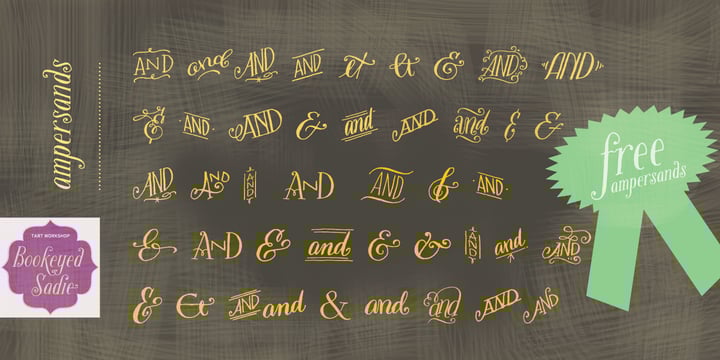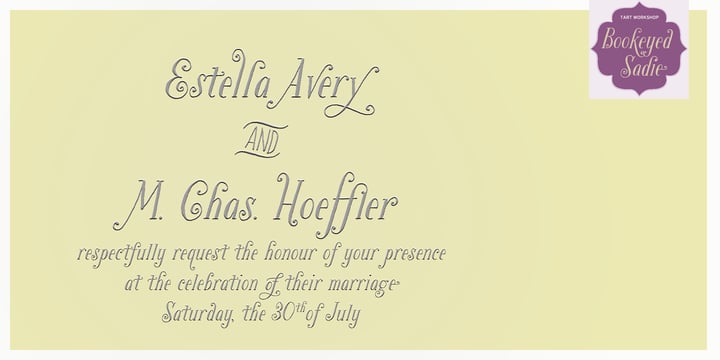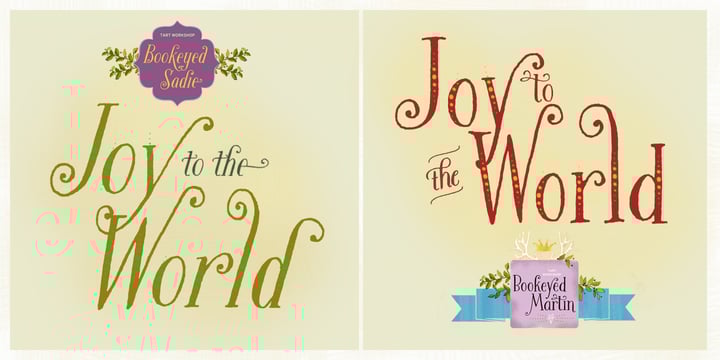
Bookeyed Sadie
Bookeyed Sadie™
Bookeyed Sadie Font Family was designed by Stuart Sandler, Crystal Kluge and published by Tart Workshop. Bookeyed Sadie contains 2 styles and family package options.
About Bookeyed Sadie Font Family
Bookeyed Sadie has a big voice and powerful curves calling attention. She’s an Open Type font filled with a beautiful ligatures, contextual & stylish alternates. With a healthy collection of glyphs (including alternate caps, roman numerals, 2 sets of arabic numerals, and more) you can easily dress her up or down to suit the occasion and fit the project perfectly. Her hand drawn lines reference vintage type in a modern quirky style and Sadie comes with a complete collection of dazzling ampersands to match! Smart, sweet & sexy Bookeyed Sadie loves book designs, titles, logos & headlines and naturally works incredibly well with her cousins,